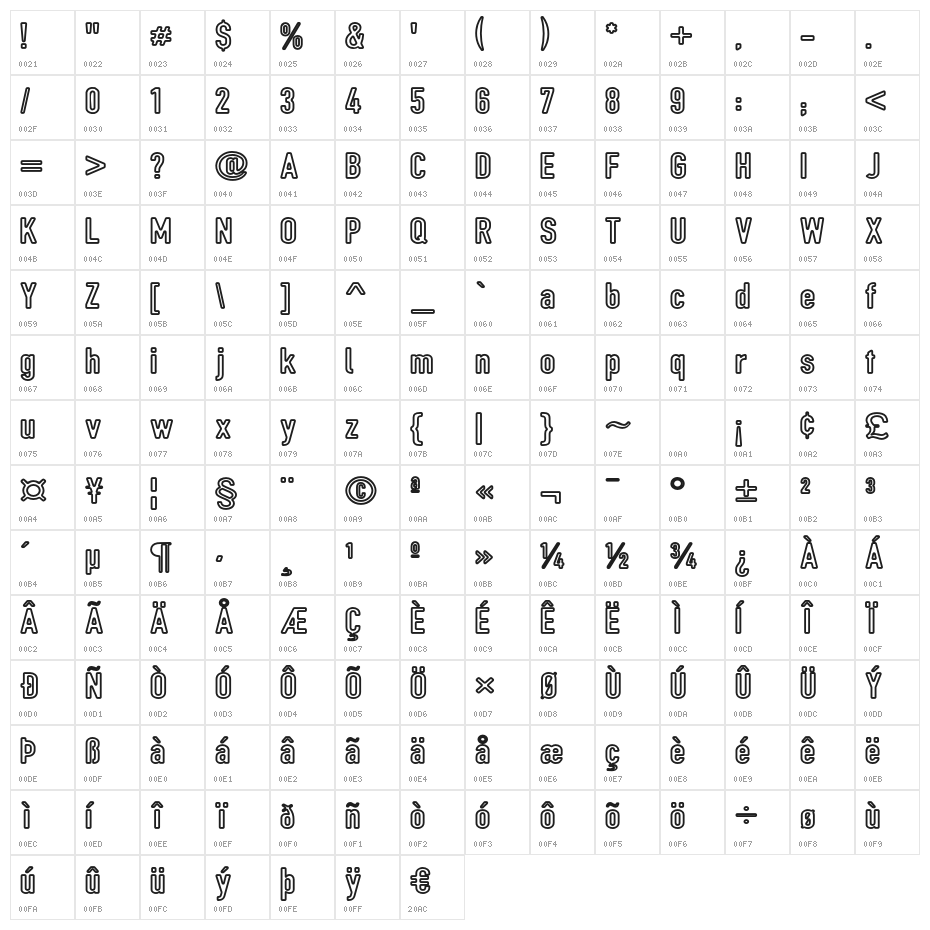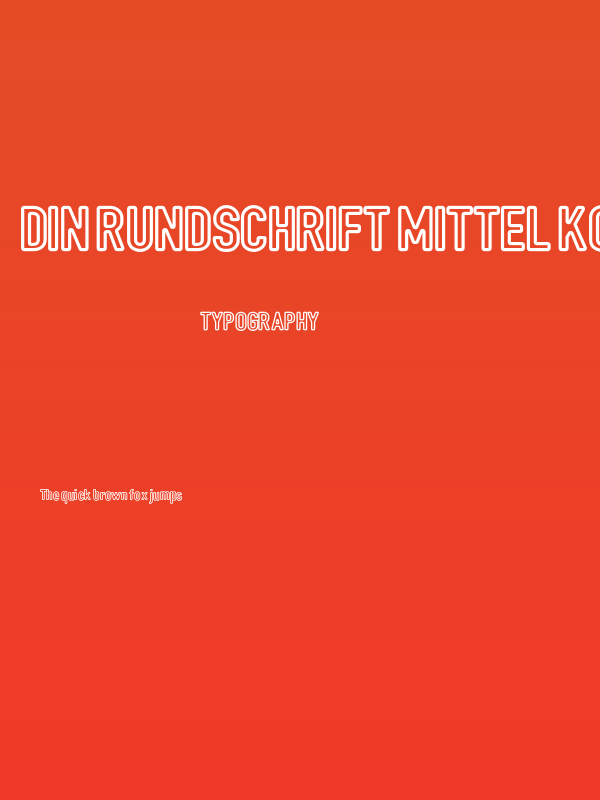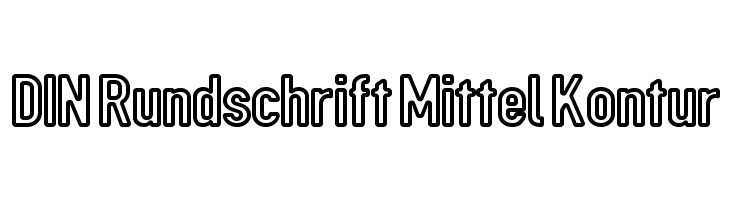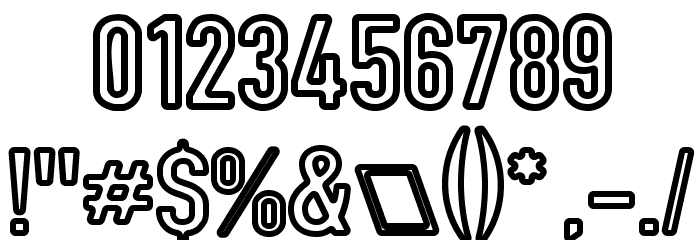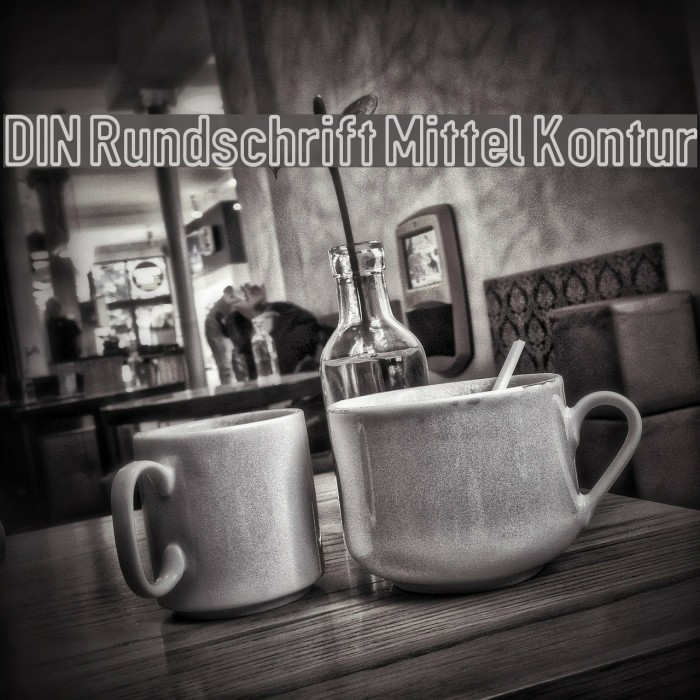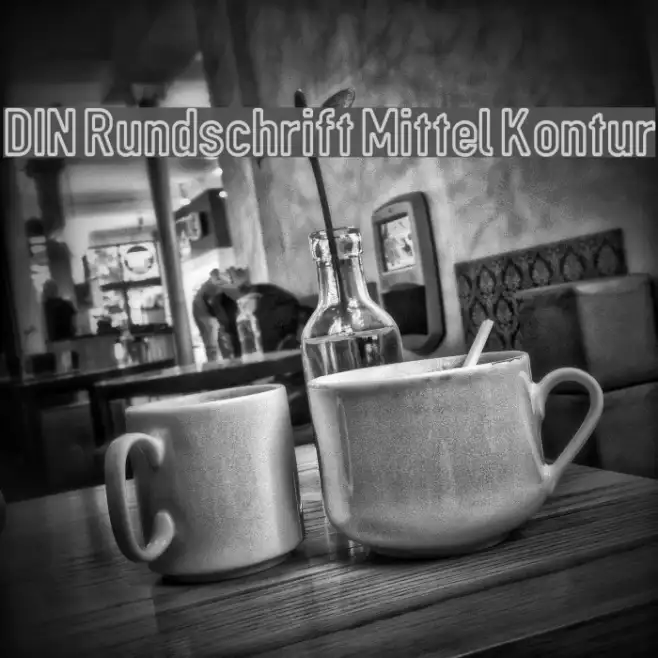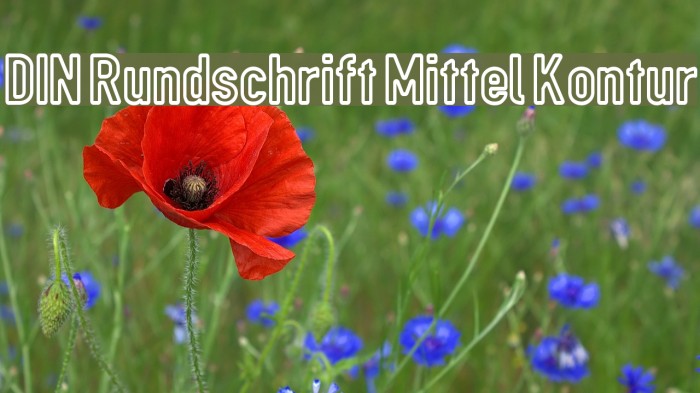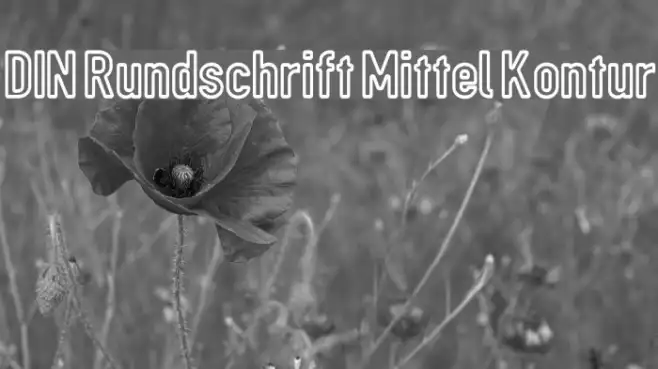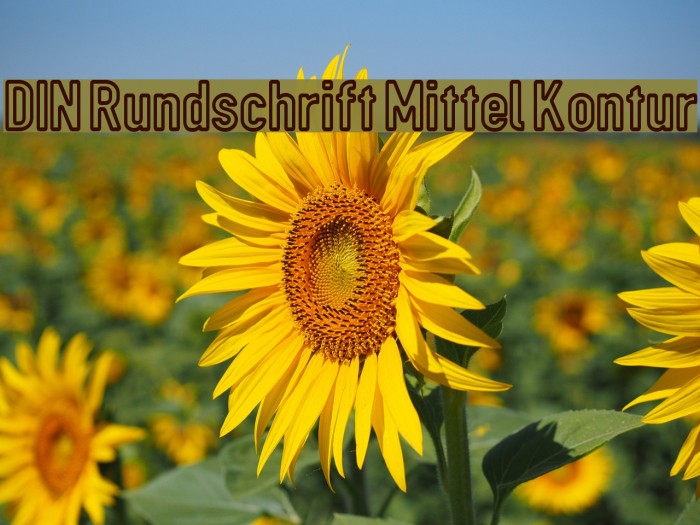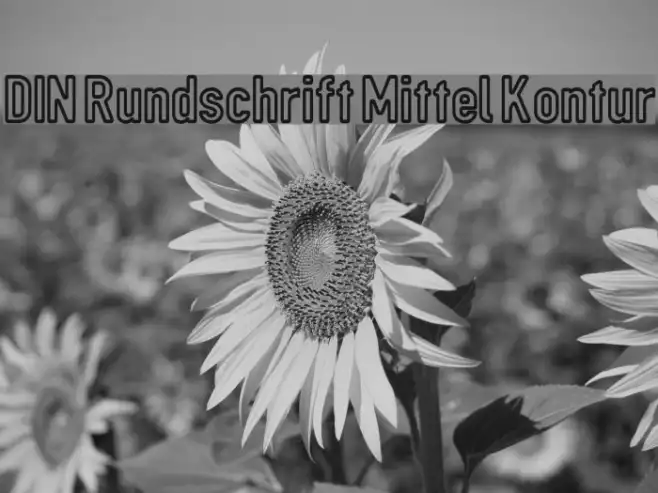
DIN Rundschrift Mittel Kontur Font
DIN Rundschrift Mittel Kontur Description
This font features a clean, geometric design with a distinct outline style. The characters are bold and uniform, providing a modern and industrial feel. The uppercase and lowercase letters maintain a consistent height and width, creating a harmonious appearance. The numbers and special characters are equally well-defined, ensuring readability and versatility. The font's outline gives it a unique aesthetic, making it suitable for various design applications where a bold statement is desired.
| Proposed Projects | Ideal for signage, branding, posters, and any design project requiring a strong visual impact. |